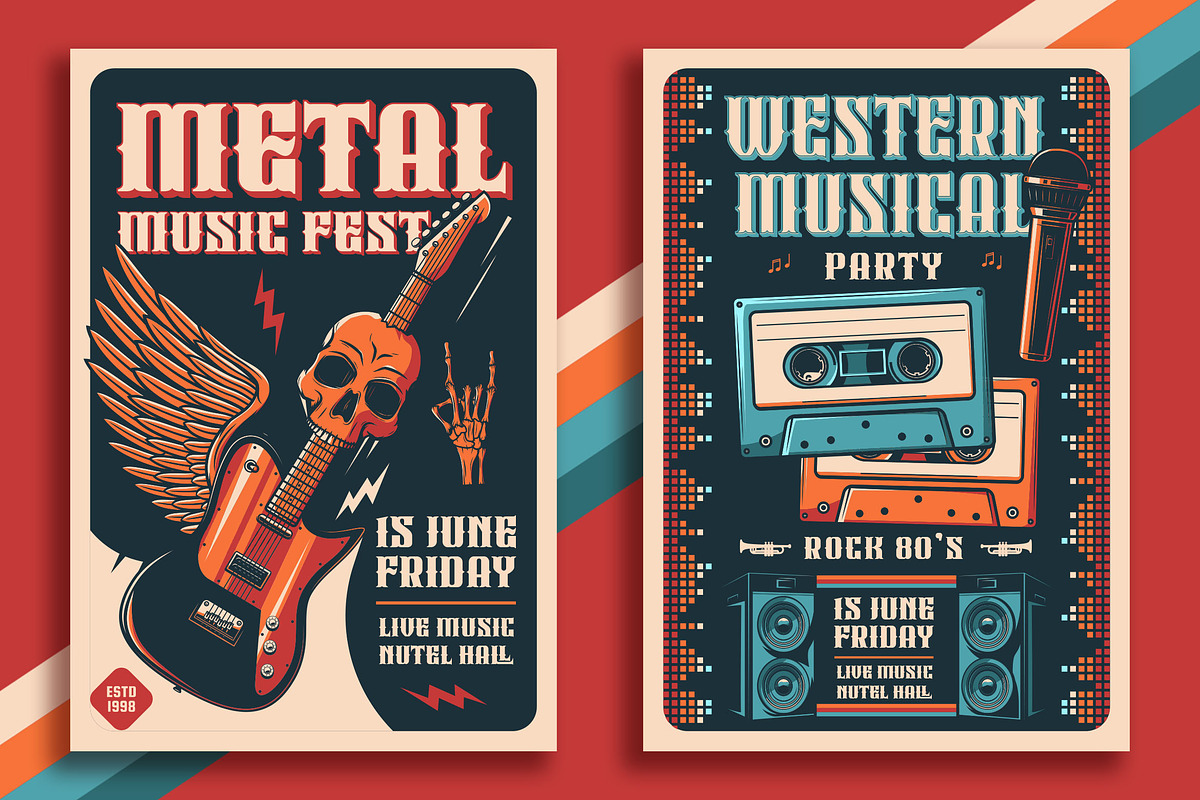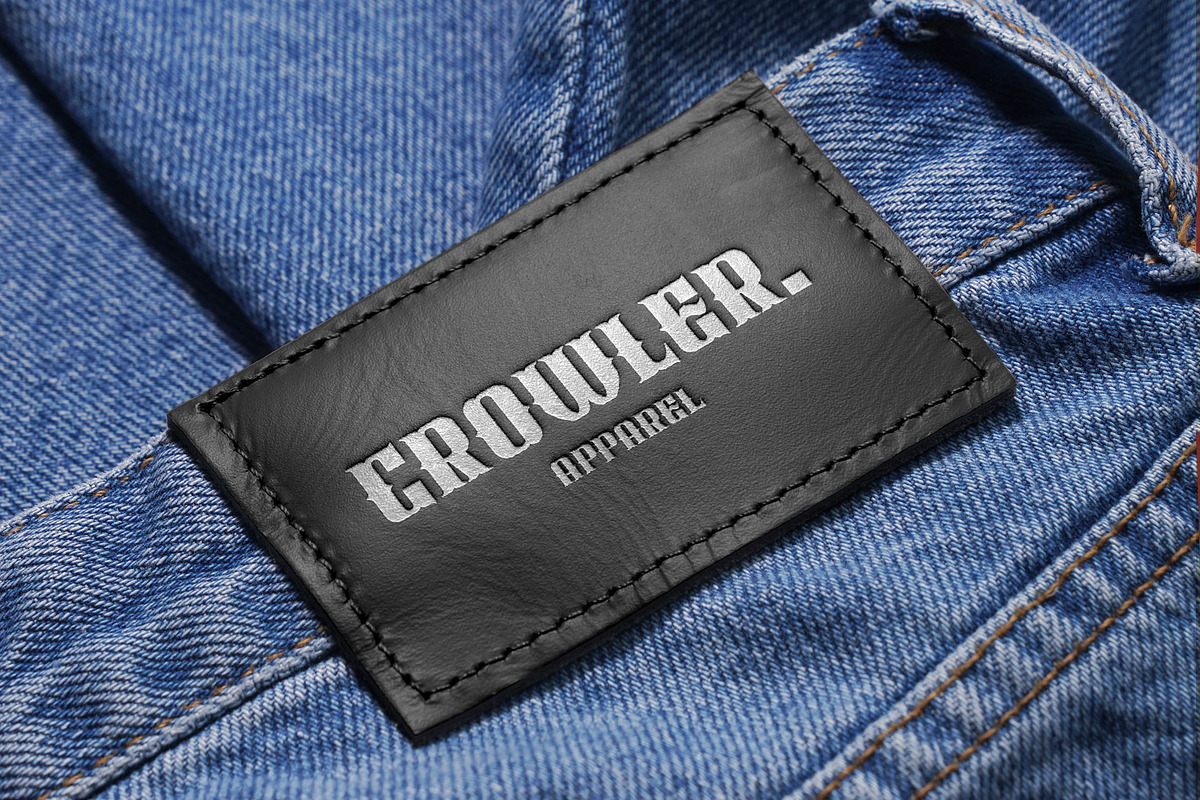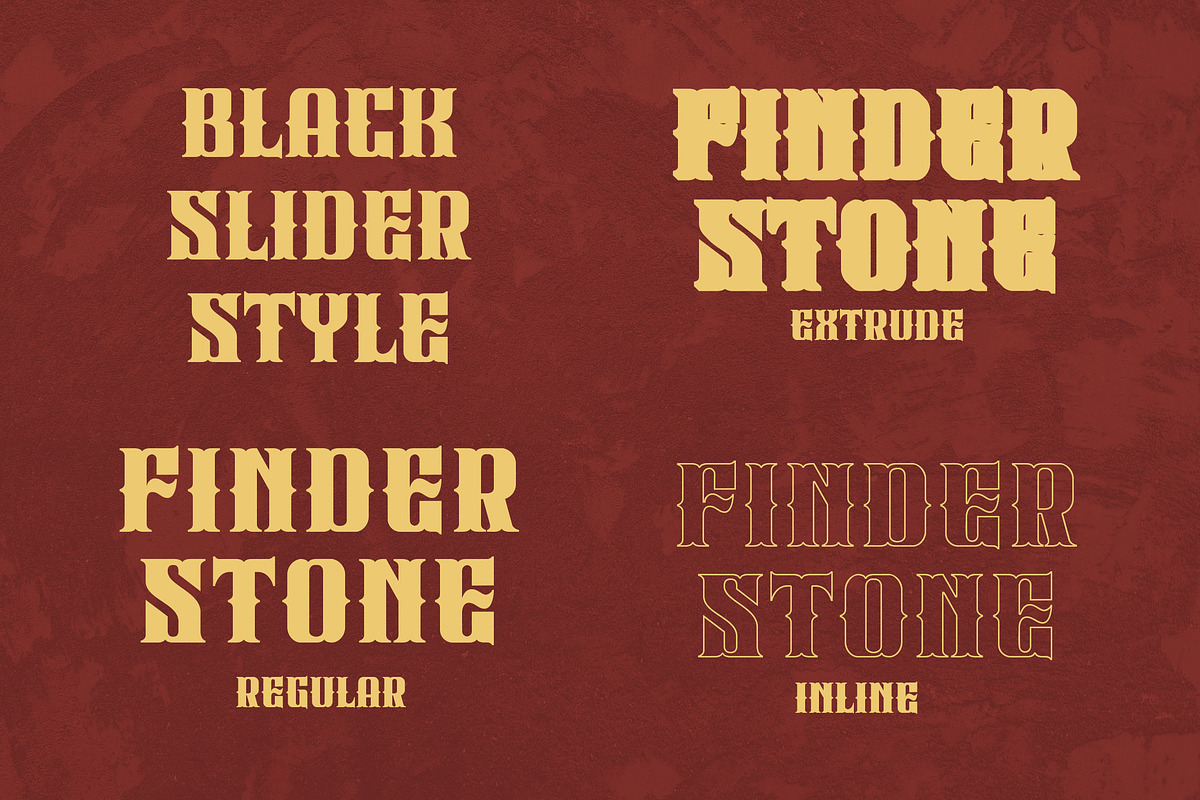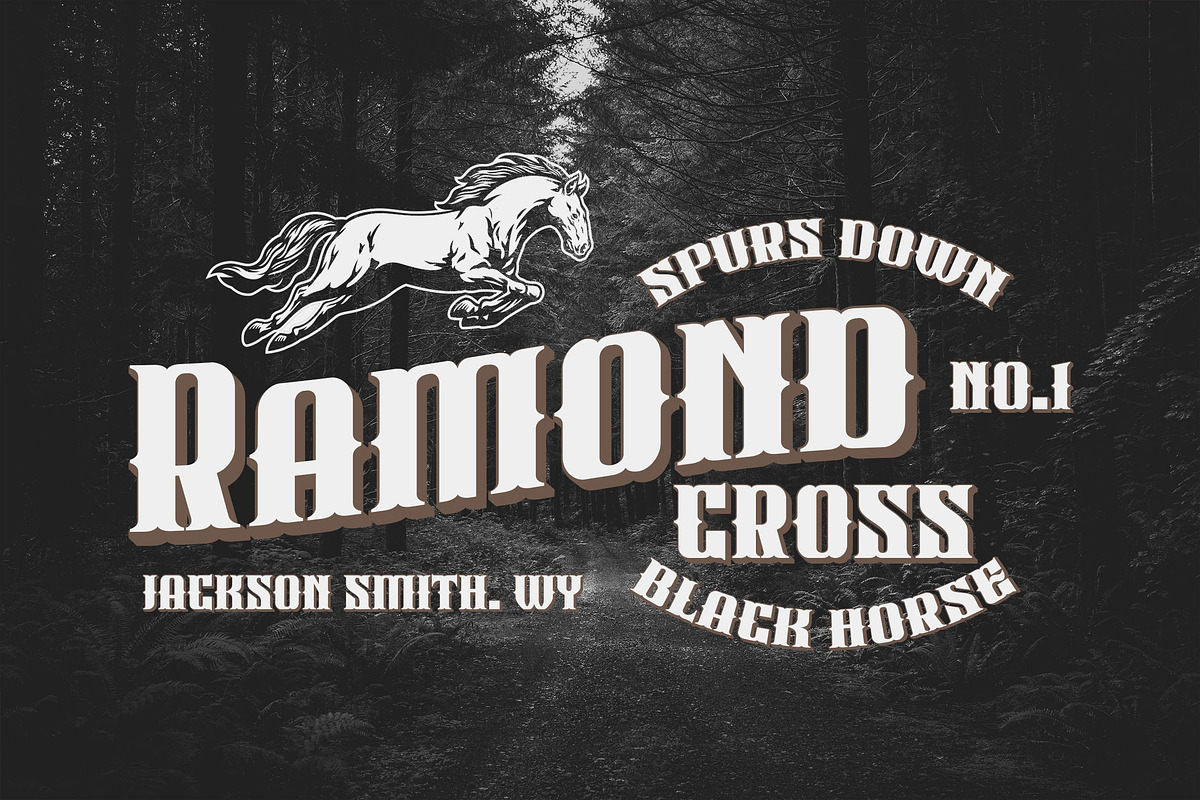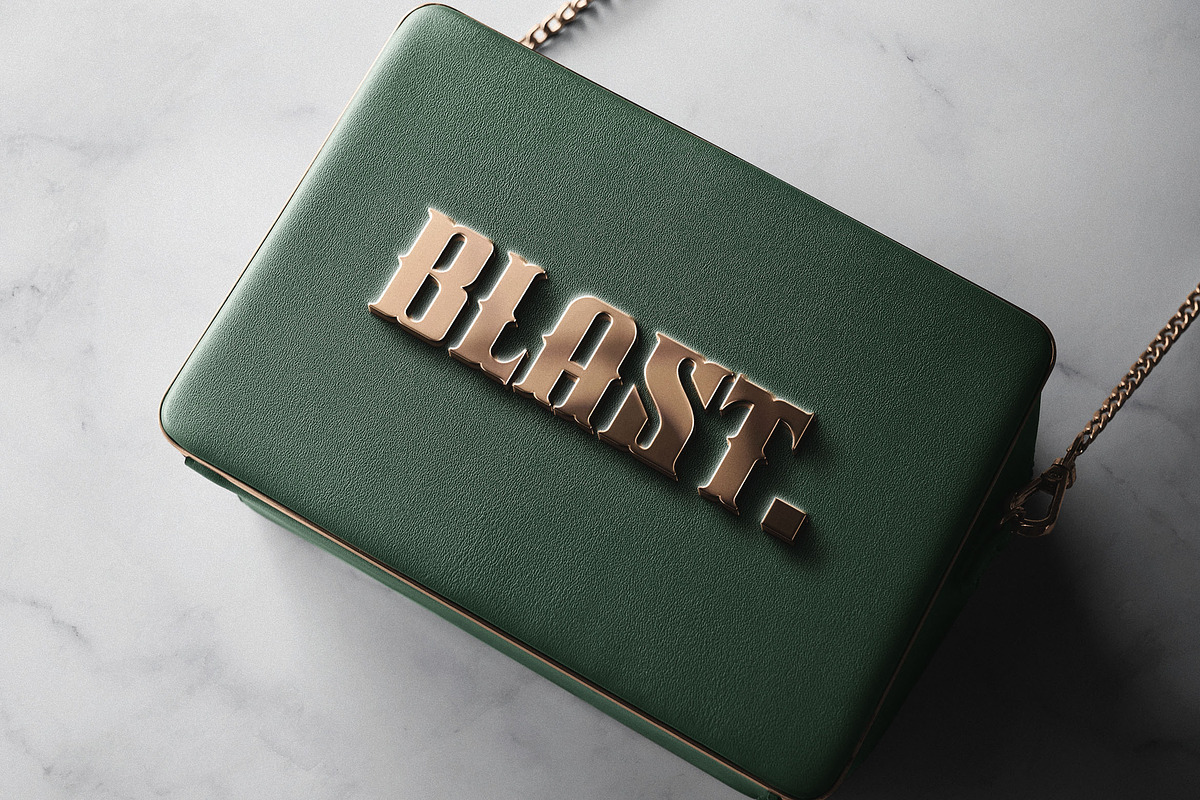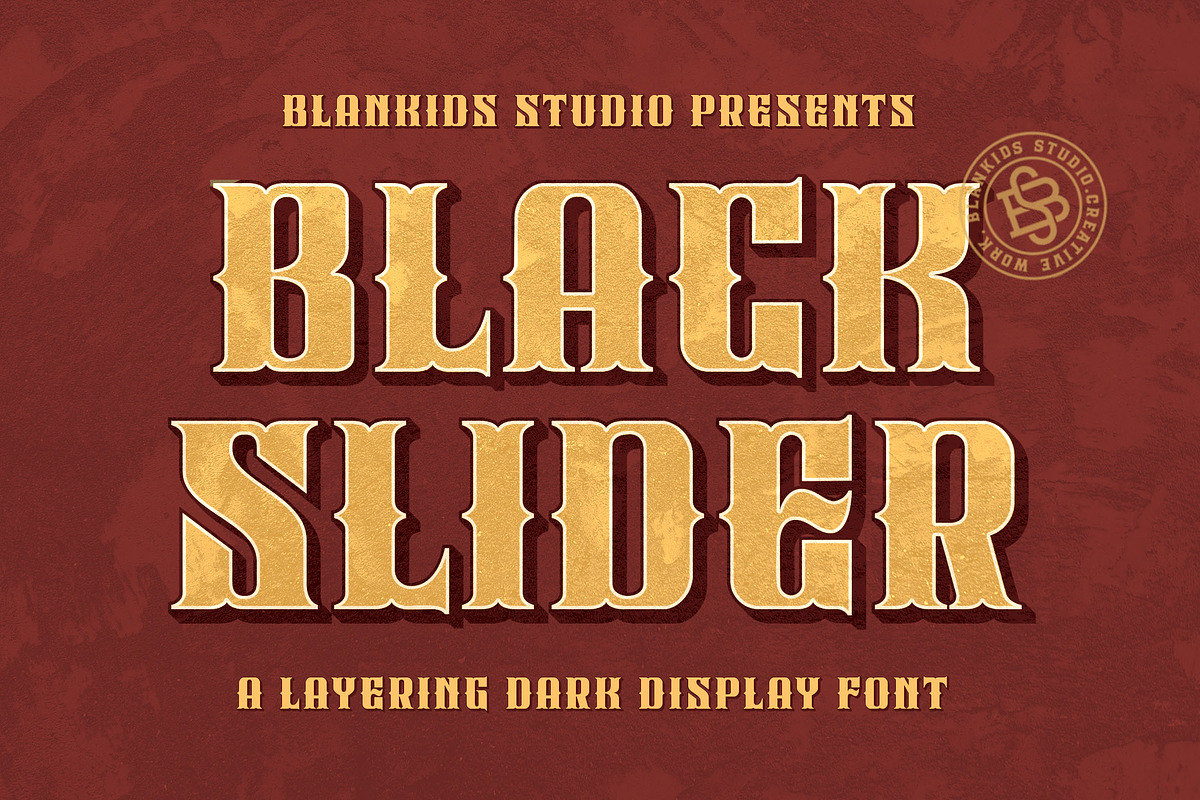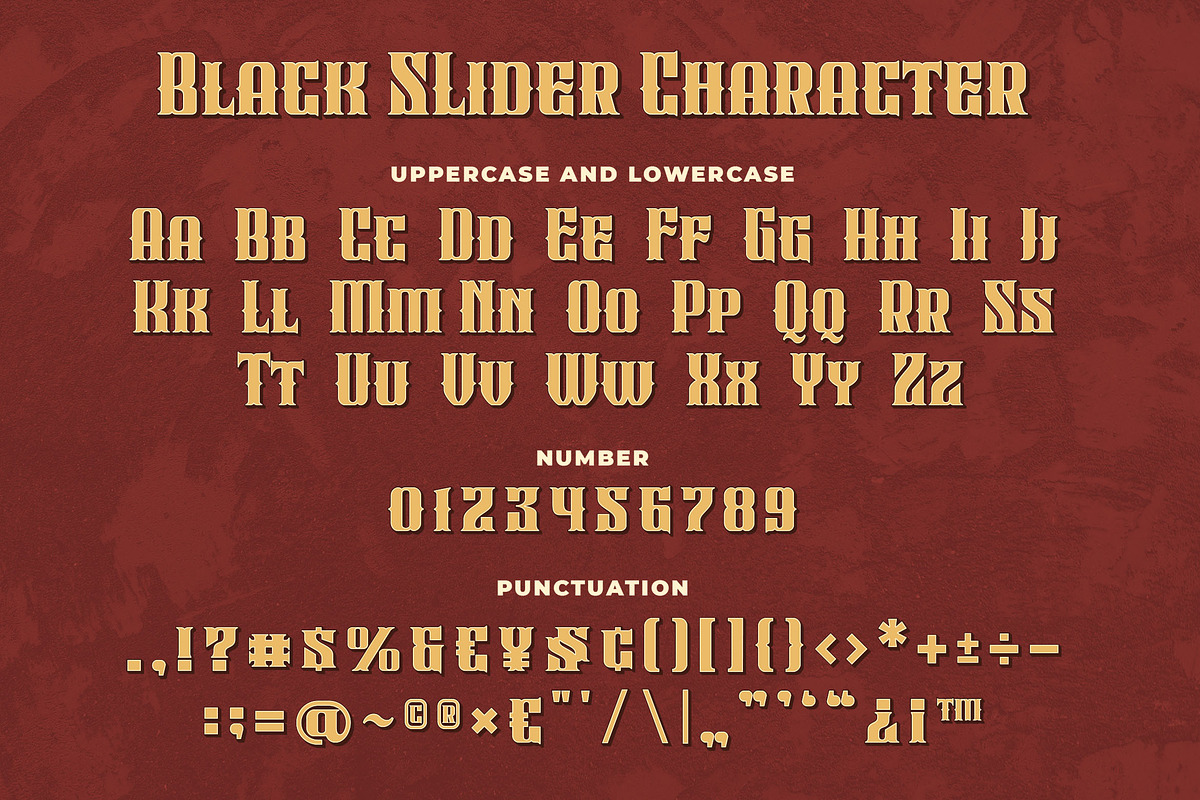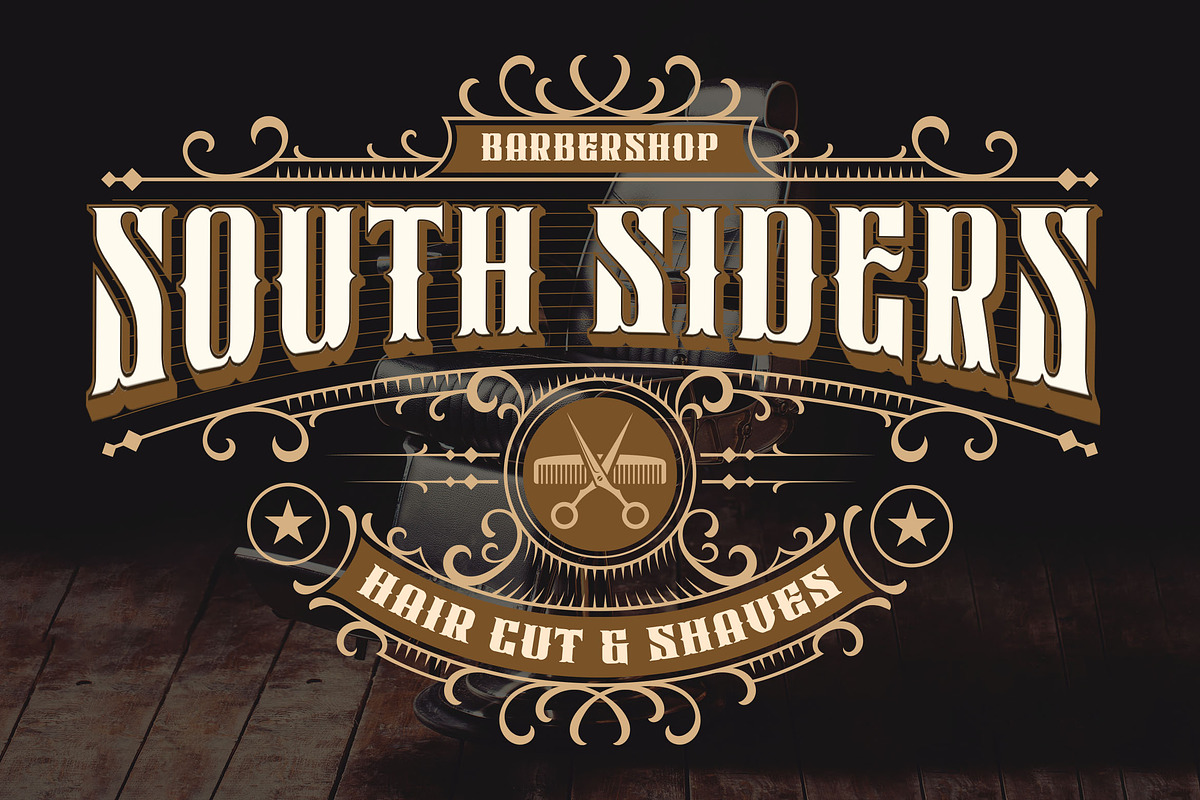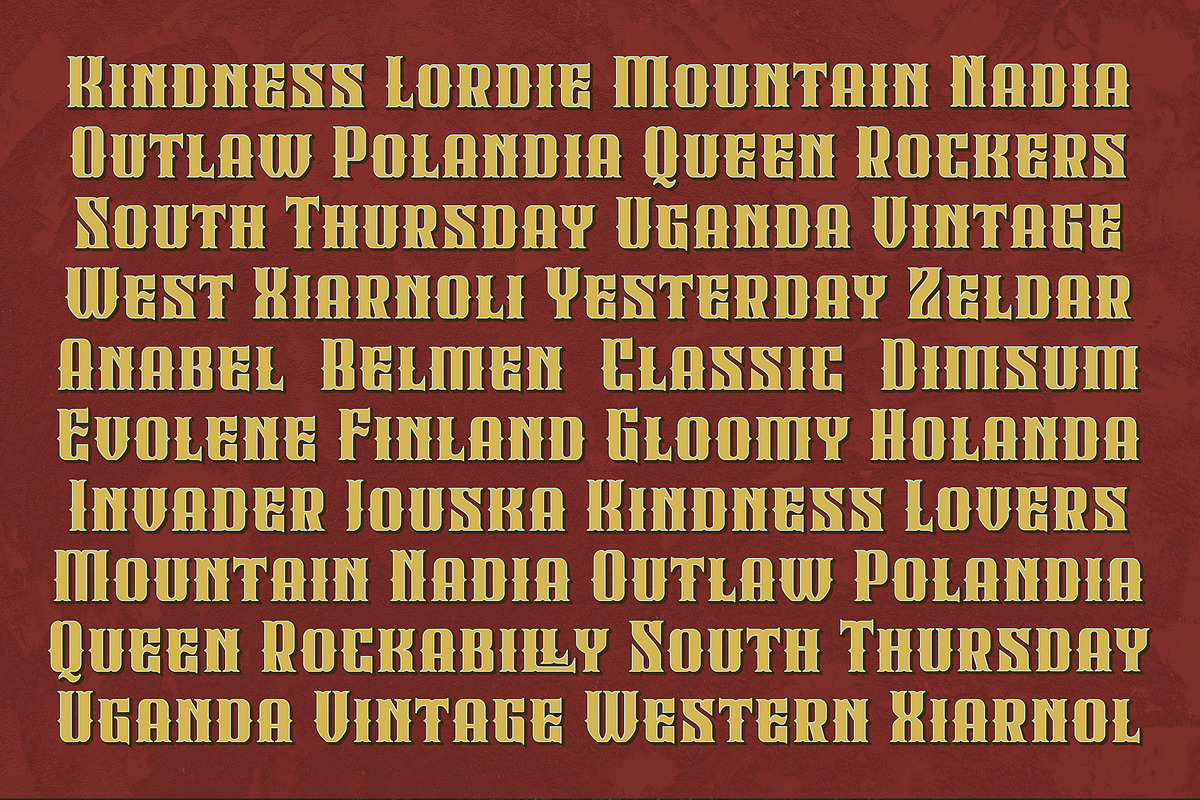
Black Slider a Layering Dark Display
Are you looking for a layering display font? Do you want of creating Something that stand out and inspire creativity, imagination, and endless fun? Wait no more, we will give you the best choice.
Black Slider a Layering Dark Display Font
Black Slider a Layering Dark Display Font, Inspiring from old western typography. This font is perfect for a design that makes it more attractive and playful. made with a very good level of aesthetics making this font suitable for book cover, poster, packging, merchandise, logotype and much more.